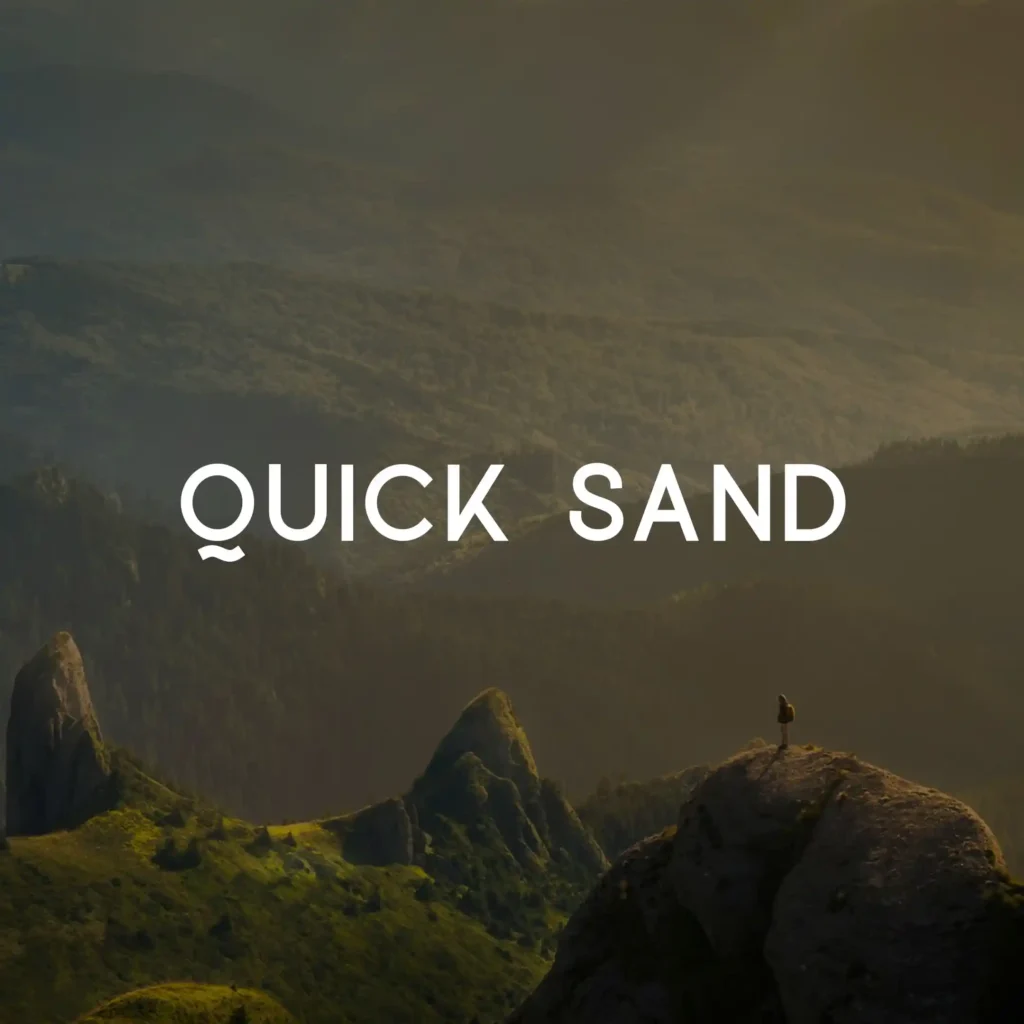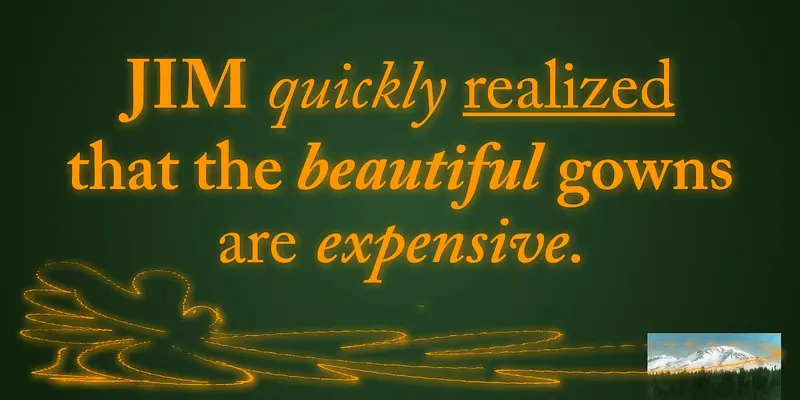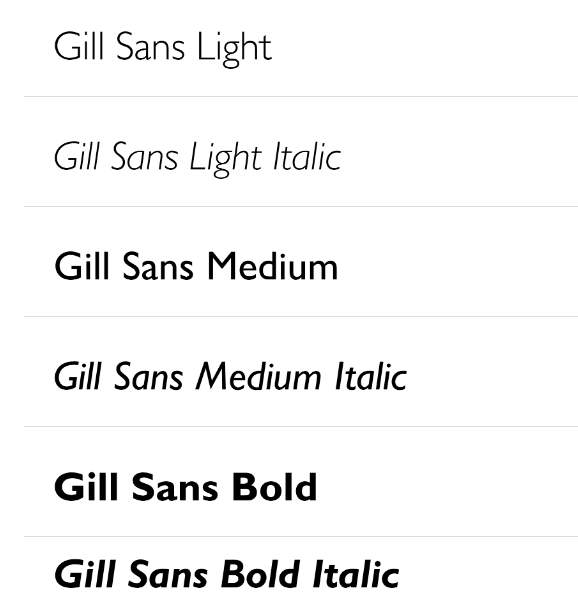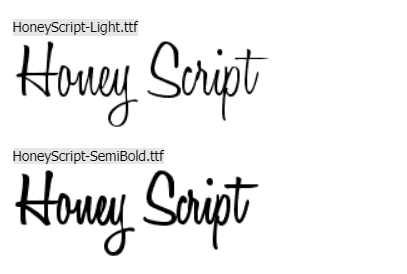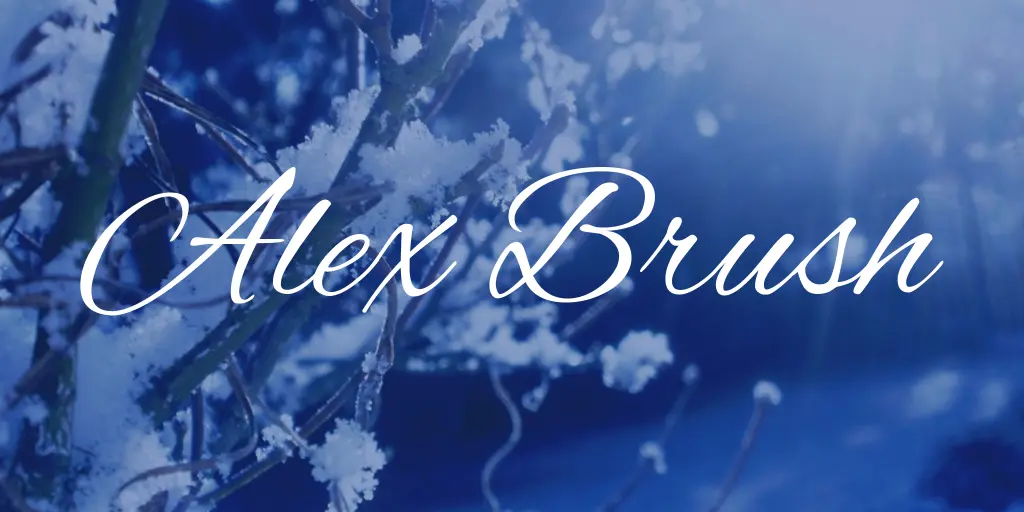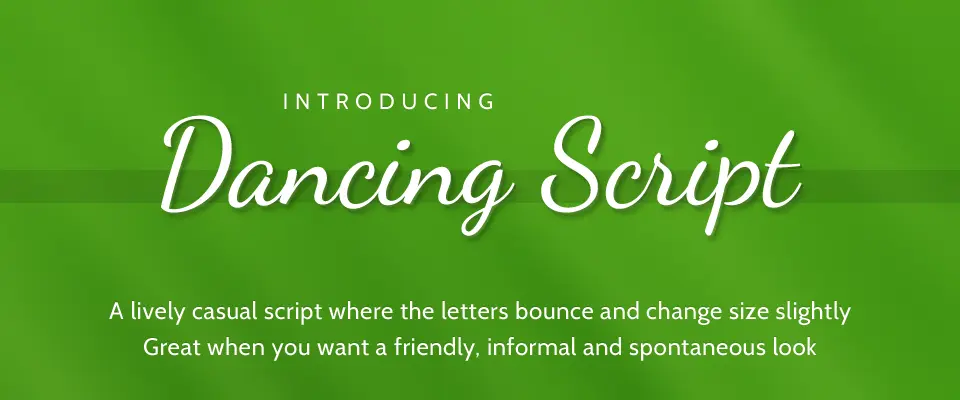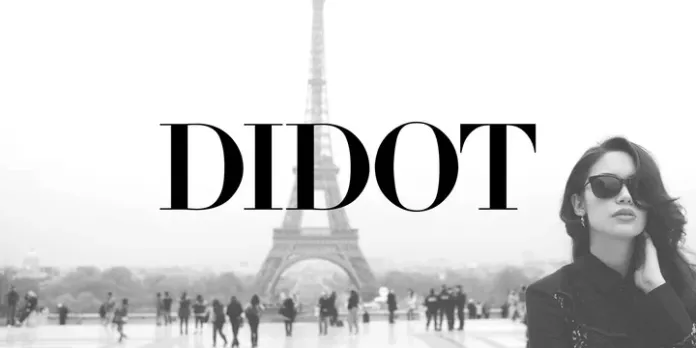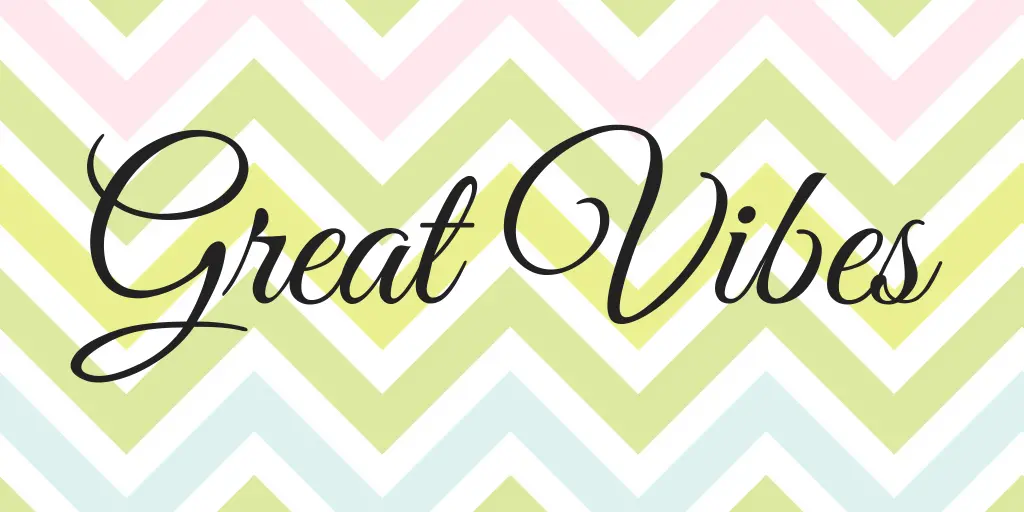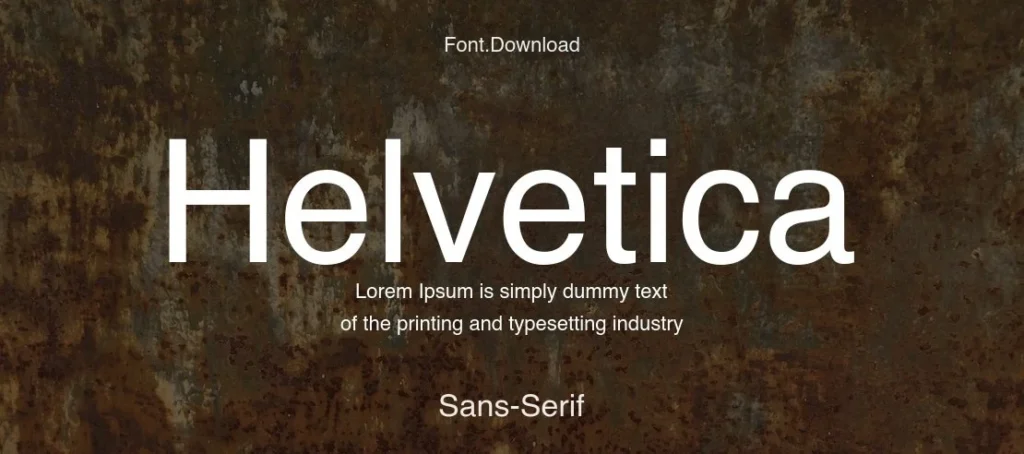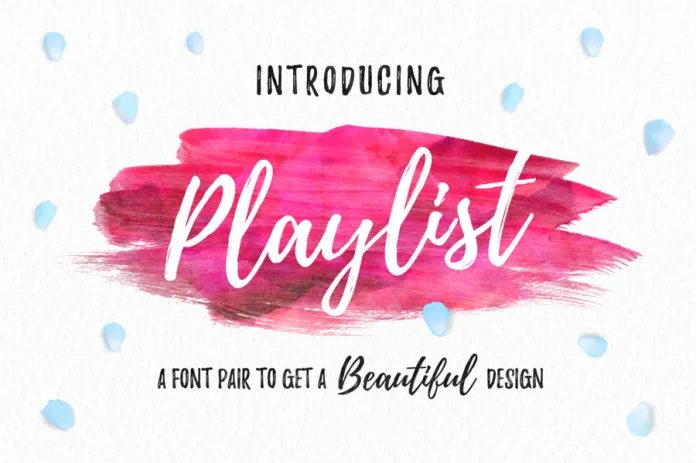
Must-Have Wedding Fonts: Free and Premium Styles for Unforgettable Invitations
Best Wedding Fonts for Elegant and Memorable Invitations
When it comes to wedding design, fonts play a key role in setting the tone and style of the entire event. As a professional graphic designer, I’ve seen how choosing the right font can enhance the overall aesthetic of wedding invitations, save-the-dates, and even digital invitations. Whether it’s a classic serif font that gives off a traditional vibe or a modern calligraphy style that adds elegance, fonts aren’t just letters – they communicate the wedding’s theme and personality.
From my experience working on various wedding-related projects, I’ve found that understanding the couple’s vision and combining it with design principles helps in choosing fonts that resonate with the couple and their guests. Let’s explore some of the best fonts and pairings for different wedding styles.
What Are Wedding Fonts?
Wedding fonts are specific typography styles used for wedding-related designs, such as invitations, save-the-dates, signage, and digital invitations. In my experience, serif fonts, script fonts, and cursive fonts work best for weddings. They add a beautiful, timeless touch to any design. But don’t limit them to just weddings! I’ve used wedding fonts for digital announcements and branding for a variety of events, which proves their versatility.
Why Wedding Fonts Matter
From my perspective, the font you choose for your wedding can take your invitation from ordinary to extraordinary. However, the wrong choice can ruin the whole theme. I’ve been in situations where a couple initially chose a decorative font, but it clashed with the simplicity of the rest of the design. Quickly switching to a serif font made the whole invitation come together seamlessly.
Readability is equally important. Guests must see important details like the date and location, so I always recommend balancing aesthetics with functionality. The best fonts not only look great but also communicate the important points effectively.
Best Wedding Fonts for Invitations
When it comes to creating beautiful and memorable wedding invitations, the font you choose can make a huge impact. As a graphic designer with years of experience, I’ve worked with a variety of fonts that bring out the best in wedding stationery. From romantic script fonts to modern sans-serifs, here’s my take on the best fonts for each style.
1. Script Fonts for Wedding Invitations
Script fonts mean beauty and flow. These fonts have cursive handwriting and add a elegant, romantic touch to your invitation. Not every script font is the same. I’ve learned that the key is to find a balance between beauty and readability. Here are five script fonts I recommend:
1. Allura
Allura free script font
One of my top picks for wedding cursive fonts, Allura has simple yet sophisticated strokes. Its clean design makes it perfect for both traditional and modern weddings. It’s lightweight and legible, even when used at a small size for RSVP cards.
2. Great Vibes
Great vibes
This font stands out because of its flowing, graceful curves. I’ve often used Great Vibes for formal weddings where the couple wanted a luxurious and romantic feel. It works beautifully for both the couple’s names and the titles in the invitations.
3. Adios Script Pro
Adios Script Pro
If you’re looking for something a little more elaborate, Adios Script Pro brings high-end sophistication. It features intricate loops and swashes, making it ideal for an upscale, vintage wedding theme. However, it’s best to use it sparingly to avoid overwhelming the design.
4. Alex Brush
Alex Brush Font
Alex Brush is one of the most versatile free wedding fonts that I use often. It has a classic, readable flow, and it works well for wedding invitations, place cards, and even programs. Its timeless elegance matches well with serif fonts for a balanced look.
5. Edwardian Script
Edwardian script
Edwardian Script is a luxurious and classic script font that adds a royal touch to wedding invitations. Its intricate and flowing design works best for formal, black-tie weddings, where elegance is key. I’ve seen this font transform wedding signage, making it feel grand and sophisticated.
Avoid making all the text cursive when using script fonts. I always suggest using script fonts for the couple’s name or main title, while pairing them with serif or sans-serif fonts for the main text.
2. Serif Fonts for Wedding Invitations
Serif fonts are a designer’s best friend when it comes to creating formal, timeless invitations. The small lines or strokes at the ends of the letters give these fonts a polished, professional feel. I’ve used these fonts extensively for couples who want a more classic look.
1. Garamond
EB Garamond wedding font
As one of the oldest and most respected serif fonts, Garamond is perfect for a traditional wedding. Its readability and classic style make it great for both large and small text. I usually pair it with a script font for the couple’s names.
2. Baskerville
Baskervville
Baskerville feels more elegant and a little more modern than Garamond. I often use it for formal weddings where couples want something that feels luxurious but understated. It’s also very legible, even in small font sizes.
3. Didot
Didot
If you want something bold and stylish, Didot is the best font for you. It’s perfect for a high-fashion or art-inspired wedding. I’ve used Didot for invitations where the couple wanted something eye-catching but still classy. Its thin lines and high contrast create an elegant vibe.
4. Bodoni
Bodoni Moda
Another high-contrast font, Bodoni stands out with its sharp edges and stylish curves. I use this font for both modern and classic weddings because of its versatility. It pairs beautifully with script fonts and is ideal for couples looking for a refined, bold look.
5. Caslon
Caslon font
This font is one of my favourite fonts for historical or vintage-themed weddings. Its vintage charm adds a sense of tradition and sophistication to any wedding invitation. Caslon’s timeless appeal works well for formal weddings, especially when printed on textured paper.
Serif fonts are perfect for body text because they’re easy to read. If you’re working with a formal theme, combining a serif font with a subtle script font can make your invitation stand out without making it look too busy.
3. Sans-Serif Fonts for Wedding Invitations
Sans-serif fonts are clean, modern, and minimal. They don’t have the extra strokes that serif fonts do, making them ideal for contemporary or minimalist wedding invitations. Over the years, I’ve found that sans-serif fonts are great for couples who want something simple but impactful.
1. Futura
futura font
Futura is geometric, clean, and has a modern aesthetic. It’s a great font for minimalist wedding invitations. I’ve used it for couples who wanted something sleek and modern but didn’t want to stray too far from elegance.
2. Helvetica
helvetica font
Helvetica is the essence of versatility. It’s a neutral, balanced font that can fit almost any wedding theme. I’ve used it in wedding invitations where the focus in the design was more on simplicity and clarity of information, rather than on showiness.
3. Avenir
Avenir font
Avenir gives off a softer, more rounded feel than other sans-serif fonts. I love using Avenir for modern weddings with a romantic twist. It pairs well with both serif and script fonts and brings a casual but sophisticated vibe.
4. Gill Sans
Gill Sans
This is another sans-serif font that brings a subtle elegance to wedding invitations. I often recommend Gill Sans to couples who want something clean and a little vintage. It gives off a classic feel without being overly formal.
5. Proxima Nova
Proxima nova
For a trendy, modern wedding, Proxima Nova is perfect. Its rounded corners make it accessible, yet it retains a clean, sharp aesthetic. I’ve used it for informal, outdoor weddings where couples wanted their invitations to feel modern but not too serious.
If you’re using sans-serif fonts, combine them with minimalist design elements to create a modern, eye-catching look. Avoid filling the invitation with too much detail, as the clean lines of the font can get lost.
4. Handwritten Fonts for Wedding Invitations
Handwritten fonts are perfect for couples who want to add a personal, intimate touch to their wedding stationery. These fonts bring a warmth and authenticity that can’t be achieved with more formal fonts. I often suggest handwritten fonts for boho or rustic-themed weddings.
1. Sacramento
Sacramento font
Sacramento is a beautiful, flowing handwritten font that works well for informal or outdoor weddings. It feels personal and adds a homey vibe to the invitation. I also love using it for wedding signage and RSVP cards.
2. Indie Flower
Indie Flower font
This playful font is great for couples who want something casual and light-hearted. I’ve used Indie Flower for wedding invitations that have a DIY aesthetic. It’s quirky and fun, making it perfect for less traditional weddings.
3. Dancing Script
dancing script font
This font resembles quick, natural handwriting. I often recommend it for informal, rustic weddings. It’s great for couples who want their invitations to feel personal and not too polished.
4. Honey Script
Dancing Script font
Honey Script has a bolder, more fluid style, which makes it stand out from other handwritten fonts. I love using it for headings or important details on invitations. Its whimsical curves give a playful touch to any design.
5. Quicksand
quick sand font
Quicksand is a modern handwritten font with a rounded, geometric feel. It’s perfect for modern weddings where you want to mix sophistication with fun. I’ve used it for invitations where couples wanted an informal but sophisticated feel.
Handwritten fonts work best when you want to make your invitation more personal and informal. Be mindful of readability, especially in smaller sizes. It is often best to use handwritten fonts for titles or names and combine them with clean fonts for the main text.
Canva Cursive Fonts for Wedding
Canva offers a wide variety of fonts perfect for creating elegant and romantic wedding invitations, signs, and more. Over the years, I’ve found Canva to be a great tool for both beginners and professionals due to its intuitive design interface and vast library of fonts. If you’re specifically looking for cursive fonts to add a touch of sophistication and romance to your wedding designs, here are five beautiful options I often recommend:
1. Playlist Script
Playlist font
Playlist Script is one of my personal favorites for wedding invitations on Canva. It’s a versatile, hand-drawn font that has a playful but elegant vibe. The strokes aren’t overly complex, which makes it stylish and highly readable. I often recommend Playlist Script for couples who want a balance of elegance and readability. Whether it’s used for titles, the couple’s name, or small details on the invitation, this font shines in a variety of applications.
Pair Playlist Script with a clean sans-serif font like Montserrat to create contrast between the playful curves of the script and the simplicity of the text body.
1. Lobster
Lobster script font
Lobster is a popular cursive font that has a bold and vintage feel, making it perfect for couples who want something flashy and elegant. Its strong, curved letters can add a retro vibe to your invitation while still maintaining a sense of sophistication.
Lobster pairs beautifully with clean sans-serif fonts like Montserrat or Open Sans, helping to create a balanced design for both modern and retro-themed weddings.
2. Yellowtail
Yellowtail font
Yellowtail brings a fun and vibrant feel to wedding invitations thanks to its mid-century-inspired cursive style. This font is perfect for informal weddings or events with vintage or bohemian themes. The flowing, handwritten vibe adds a personal touch while maintaining readability.
Combine Yellowtail with a soft serif font like Playfair Display to add an extra layer of elegance without losing the charm.
5. Pacifico
Pacifico font
Pacifico is perfect for those who want a more relaxed and fun cursive font. It has a slightly more playful tone, while still maintaining a stylish and elegant look. I often use Pacifico for informal or destination weddings, where couples want their invitations to reflect a carefree, light-hearted atmosphere.
Create a fresh, modern look by combining Pacifico with a geometric sans-serif font like Futura. This combination is perfect for beach or outdoor weddings where the invitation design can be more informal.
How to Choose the Perfect Wedding Font
After working on countless wedding designs, I’ve come up with a few key tips to help you choose the best font:
1. Match Your Wedding Theme: The font should reflect your wedding style. For example, I typically recommend a sophisticated script for black-tie events and a handwritten font for a boho or rustic theme.
2. Consider Legibility: Make sure your guests can easily read the description, especially when the font size is small. In one project, a couple liked an ornate decorative font, but we quickly realized it was hard to read in small print, so we switched to something simpler.
3. Pair Fonts Wisely: I always recommend adding two fonts – one for headings and one for the main text. This creates visual interest while keeping things neat. For example, using a script font for your names and a serif font for descriptions is a popular and effective choice.
4. Stick to 2-3 Fonts: Too many fonts can make the design look cluttered. Stick to two or three fonts to keep it professional and consistent.
5. Test Before You Print: I always recommend printing a test invitation to see how the fonts look in real life. This step helps you catch any problems before the final print.
Digital vs. Print Fonts
A font may look great on your screen but lacks legibility in print. I’ve learned to choose fonts that work well in both formats, especially for couples sending out digital invitations or creating a wedding website. The font must remain adaptable.
Popular Wedding Font Pairings
Combining fonts effectively is an art, and for wedding invitations, pairing the right fonts can create a beautiful, cohesive design. The key is to balance decorative fonts like script with simpler, more readable fonts for the body text. Here are some popular wedding font pairs that work well together using the fonts I mentioned above:
1. Allura & Baskerville
This pairing is perfect for couples who want a classic yet romantic invitation. Allura, with its pretty cursive style, works beautifully for names or titles, while Baskerville’s formal serif structure keeps the main text clean and readable. This combination strikes a balance between romance and tradition, ideal for formal or vintage-themed weddings.
2. Great Vibes & Garamond
For elegant and timeless invitations, pair the sophisticated Great Vibes script with the refined Garamond serif. Great Vibes can be used for the couple’s name and other key elements, while Garamond strengthens the design with its classic, legible look. This pairing is especially effective for upscale, formal weddings, giving a sense of grandeur and elegance.
3. Alex Brush & Futura
This is a great choice for modern weddings that still want a touch of elegance. Alex Brush provides the classic, flowing script needed for important details, while Futura’s geometric sans-serif lines bring a modern, sleek edge to body text. This combination works well for modern weddings where minimalism meets tradition, and it’s ideal for invitations with bold design elements.
4. Sacramento & Helvetica
For a rustic or outdoor wedding, the cozy warmth of Sacramento matches wonderfully with the clean, neutral Helvetica. Sacramento adds a handwritten, personal touch to titles or names, while Helvetica ensures details are presented in a clear, easy-to-read format. This combination creates a casual, accessible feel, perfect for informal weddings or weddings held in outdoor venues.
5. Dancing Script & Baskerville
This pairing strikes a balance between playful and formal, making it perfect for boho or casual-chic weddings. The bouncy, flowing letters of Dancing Script bring a sense of joy and fun to the invitation, while Baskerville adds structure and elegance to the main text. Together, they create a whimsical yet sophisticated invitation design, perfect for a more casual yet stylish wedding theme.
Final Thoughts on Choosing Wedding Fonts
Choosing the right wedding font is more than just aesthetics – it’s about leaving a lasting impression on your guests. From personal experience, I know that the font you choose plays a key role in setting the mood for your big day. Whether you want something elegant, modern or fun, the right font will make your invitation memorable.